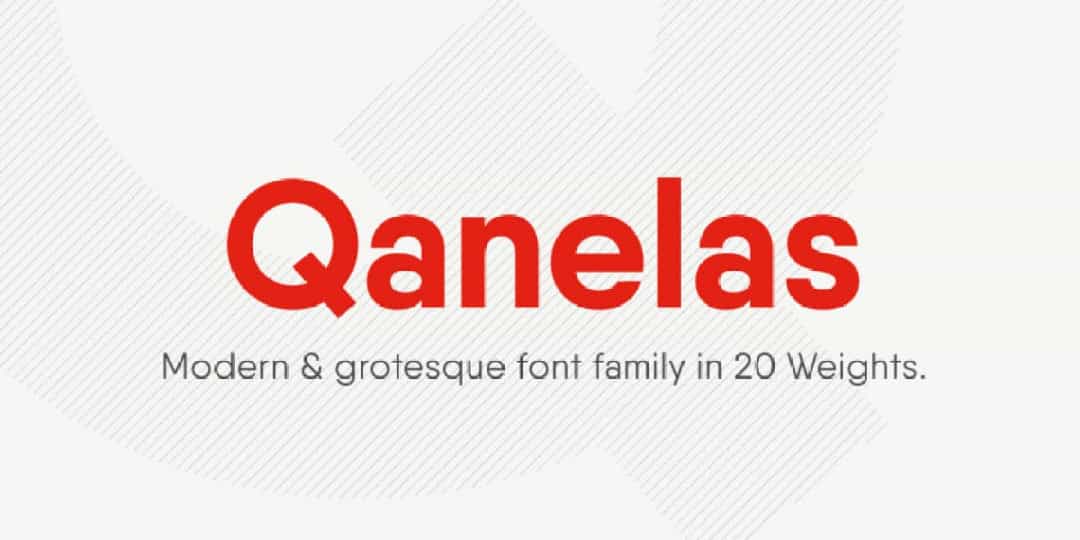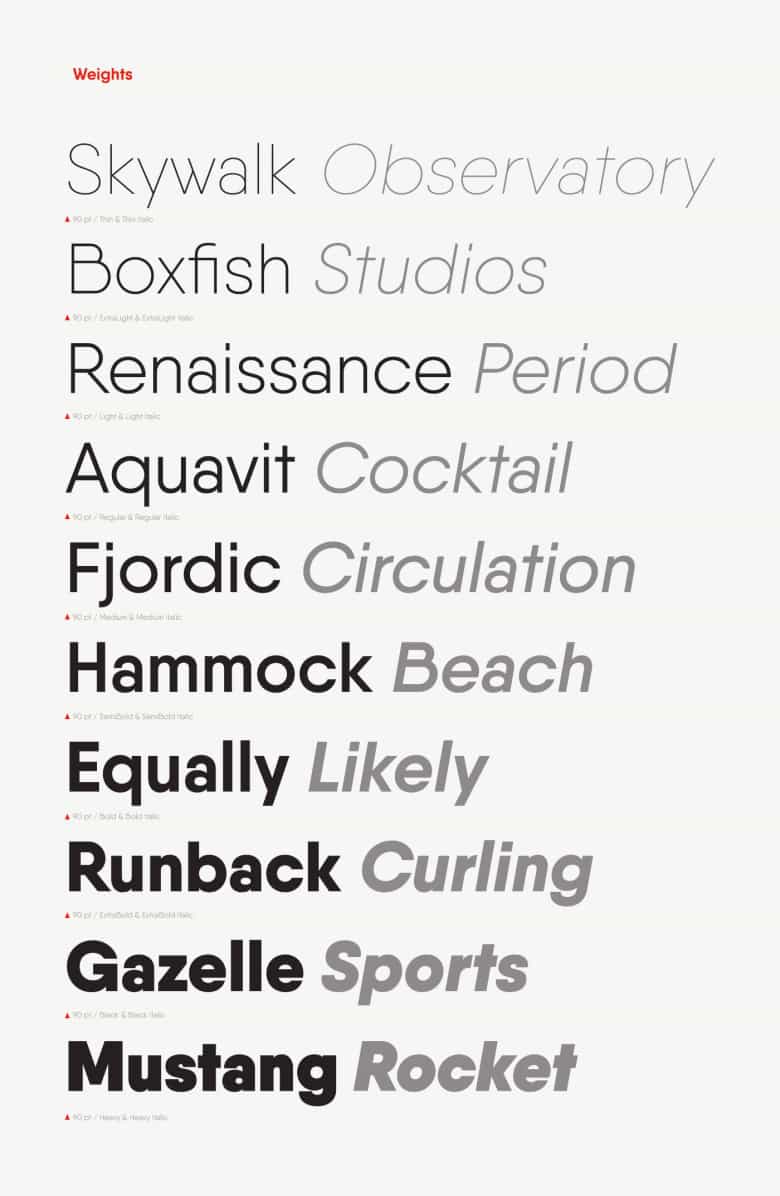
Qanelas Font is a contemporary sans serif family with geometric touches and is available in 20 weights; 10 uprights and their matching italics make up this font family, designed using opentype. Each weight includes different characters, fractions and extended support for languages (plus Cyrillic) along with ligatures, arrows and more – making this font family truly versatile and useful!